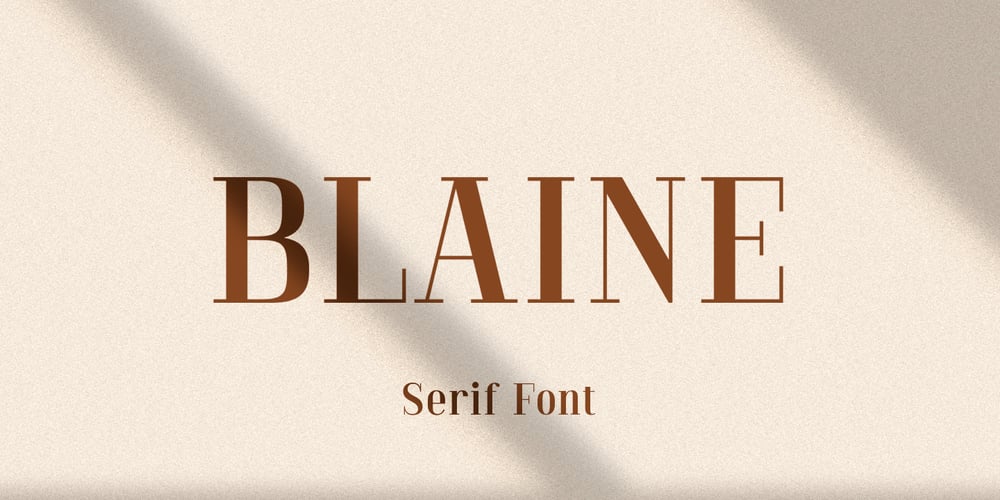
Blaine
Blaine font
Blaine Font Family was designed by Pavel Larin and published by Larin Type Co. Blaine contains 1 styles and family package options. Blaine is a multi-purpose display serif font that will fit perfectly into any project. contrastive and elegant, it carries a classic and at the same time modern contrasting performance. You can also use alternates and ligatures for variety and this will add more charm to your project and emphasize your personality. Use it to create logos, book and magazine covers, branding, posters, flyers, outdoor advertising, stationery, business cards, and much more. This font is easy to use, has OpenType features.